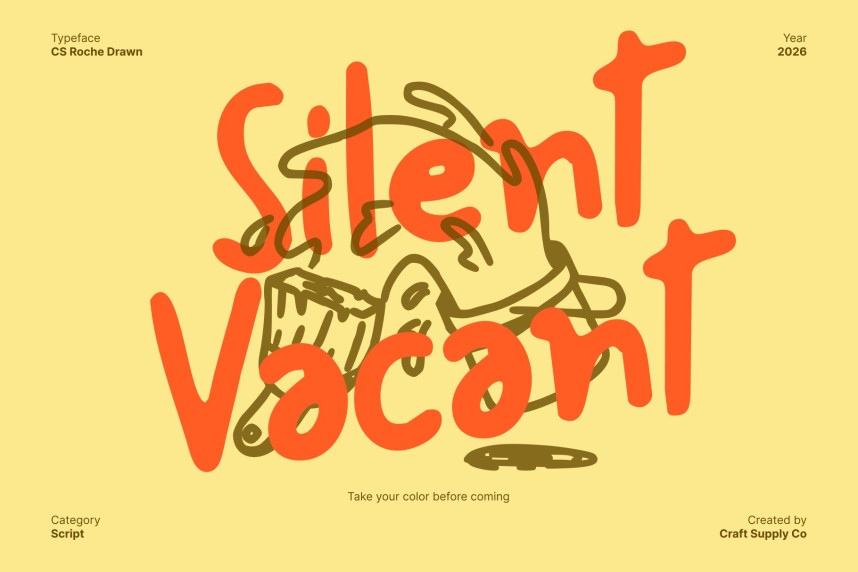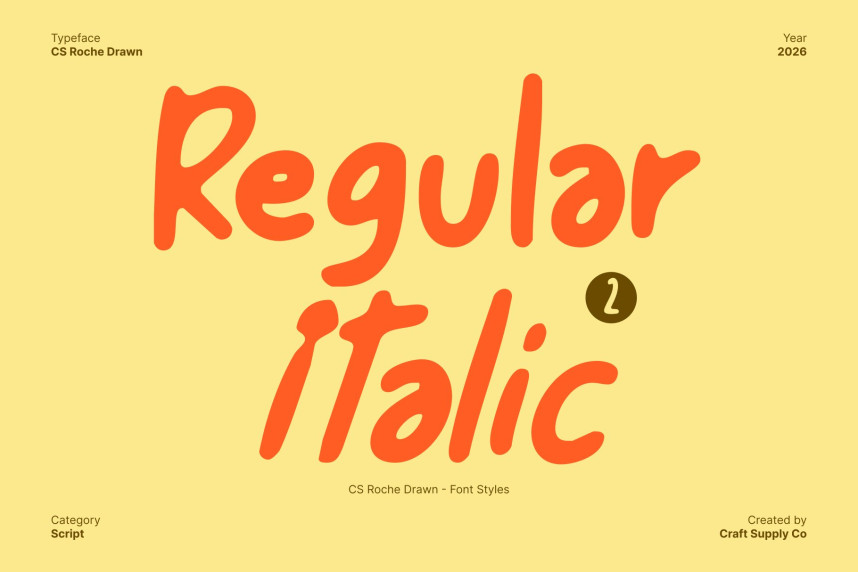
CS Roche Drawn Font
CS Roche Drawn Font – Playful Handwritten Charm Inspired by Nature Fun Handwritten Font with Fresh Personality. This is a playful handwritten sans serif font designed to radiate warmth, creativity, and approachability. Its lively, hand-drawn strokes and organic flow create a natural rhythm, while subtle floral inspiration adds a refreshing, nature-driven charm. The drawn effect gives each letter a soft, personal character that feels joyful and full of life.